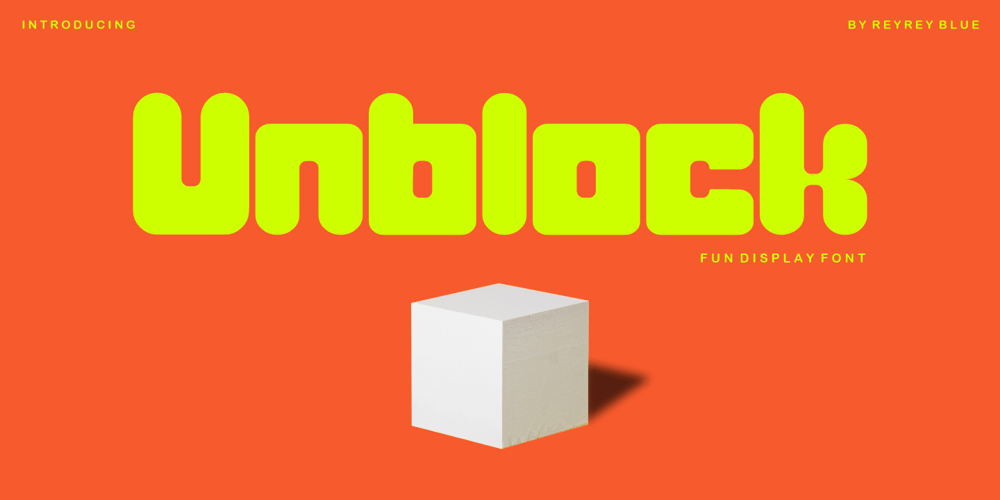
Unblock
Unblock font
Unblock Font Family was designed by Risca Anitawati and published by Reyrey Blue Std. Unblock contains 1 styles and family package options. Introducing, Unblock Typeface. A bold display typeface with strong character and soft features. It’s bold, fun, and playful. It can make your design unique, modern, and stunning.Unblock is perfectly suited for Comic Posters, Childish headlines, Decorative letters, Notices, Logo Designs, Big funny Banners: creative and decorative Typography Web Design, and much more. Features : All Uppercase and LowercaseNumber & SymbolSupported LanguagesPUA Encoded